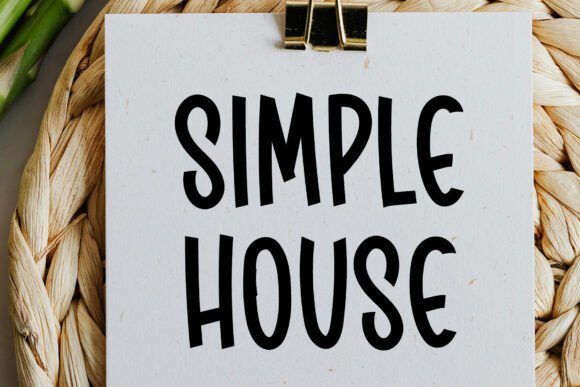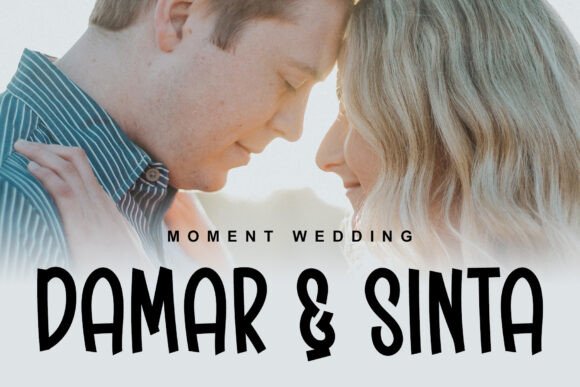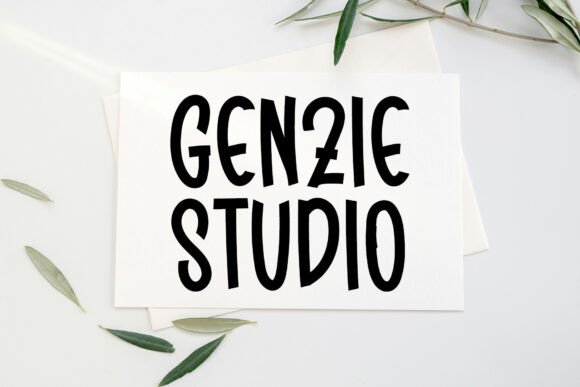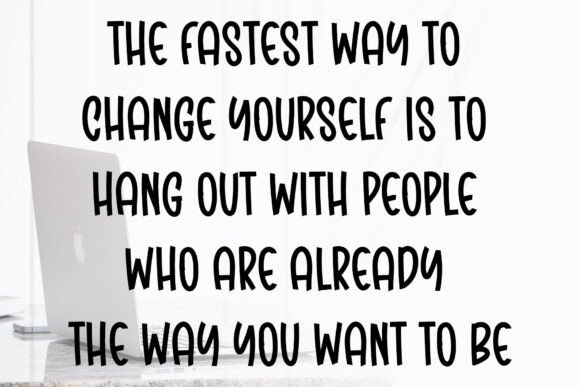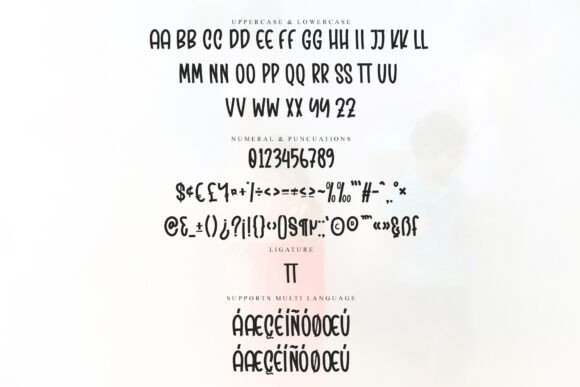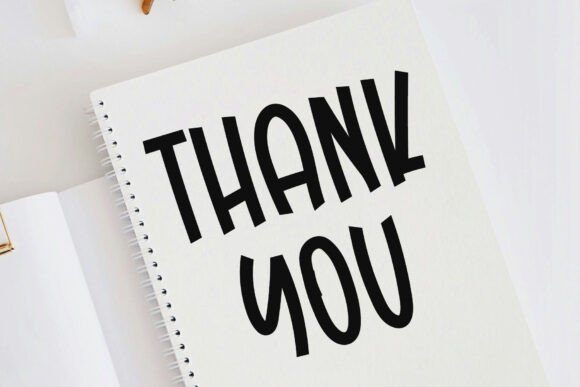
Introduction to Notes Alphabet Font Font
Fonts play a crucial role in design, and the Notes Alphabet Font font is a typeface that brings both character and versatility to any project. Whether you’re working on a branding project, a website, or a print design, the Notes Alphabet Font font offers a unique style that can elevate your work.
Notes Alphabet is a simple handwritten font.
This is a straightforward and minimalist sans-serif font that emphasizes simplicity and readability With its clean lines and unadorned letterforms, this font offers a versatile and practical option for a wide range of design projects.
The Notes Alphabet Font font is more than just a typeface – it’s a design tool that helps you communicate your message with style and clarity. Its unique character set and versatile design make it suitable for a wide range of applications, from elegant invitations to bold headlines.
With its carefully crafted letterforms and balanced proportions, the Notes Alphabet Font font ensures readability and visual appeal across all mediums.
The Notes Alphabet Font font stands out with its unique design, exceptional readability, and versatility across various design applications.